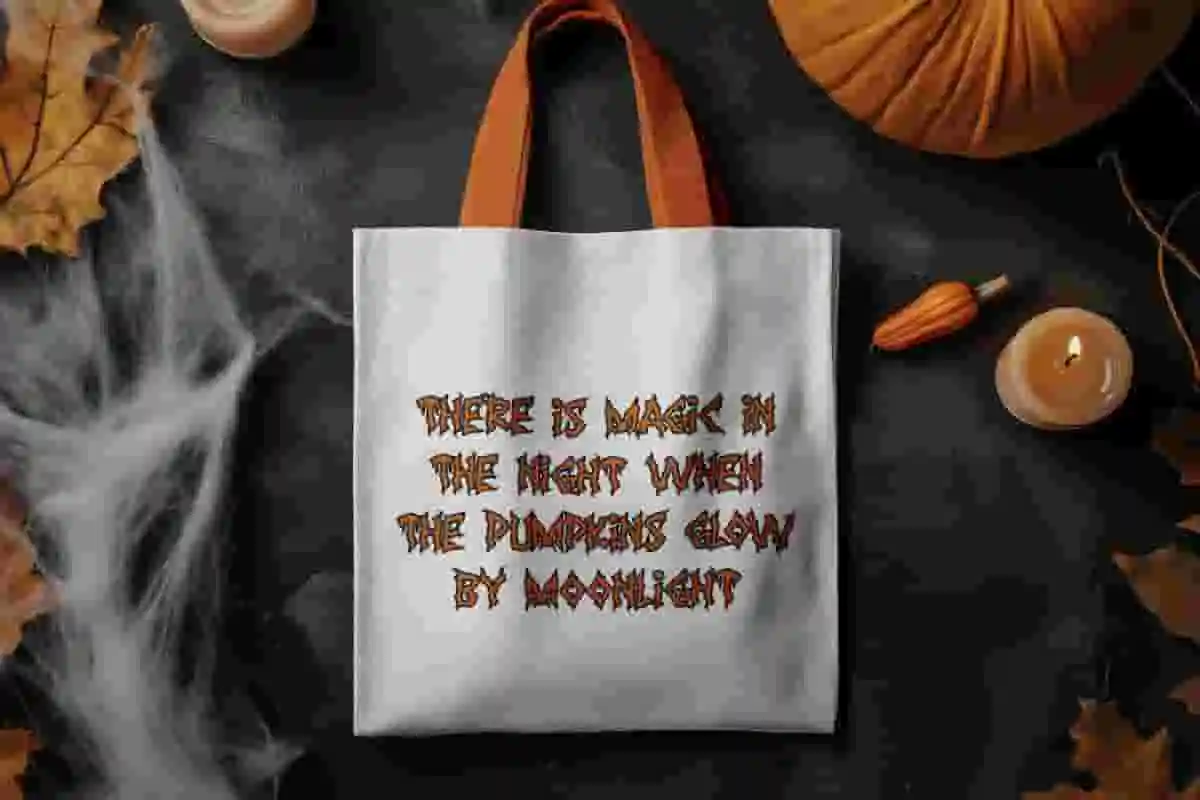
Pratidha Font is a horror hardcore rough sketch decorative Black metal font by NoahType. This font shape can leave a scary impression, like paper burning with fire and forming all the letters. It will be perfect for any designs, such as custom design, brand image, poster, label, invitation, cover, marketing material, menu, printing, product packaging, quotes, signage, website, and many more!
Pratidha Font includes full set of ALL CAPS for Uppercase and Lowercase Basic Characters, Numerals, Punctuation, and Symbol. This scary font will make your design amazing and also a perfect choice for many industries, such as game, movie, comic, music, accessories, advertising, art, café, event or festival, fashion, printing, publishing, etc.